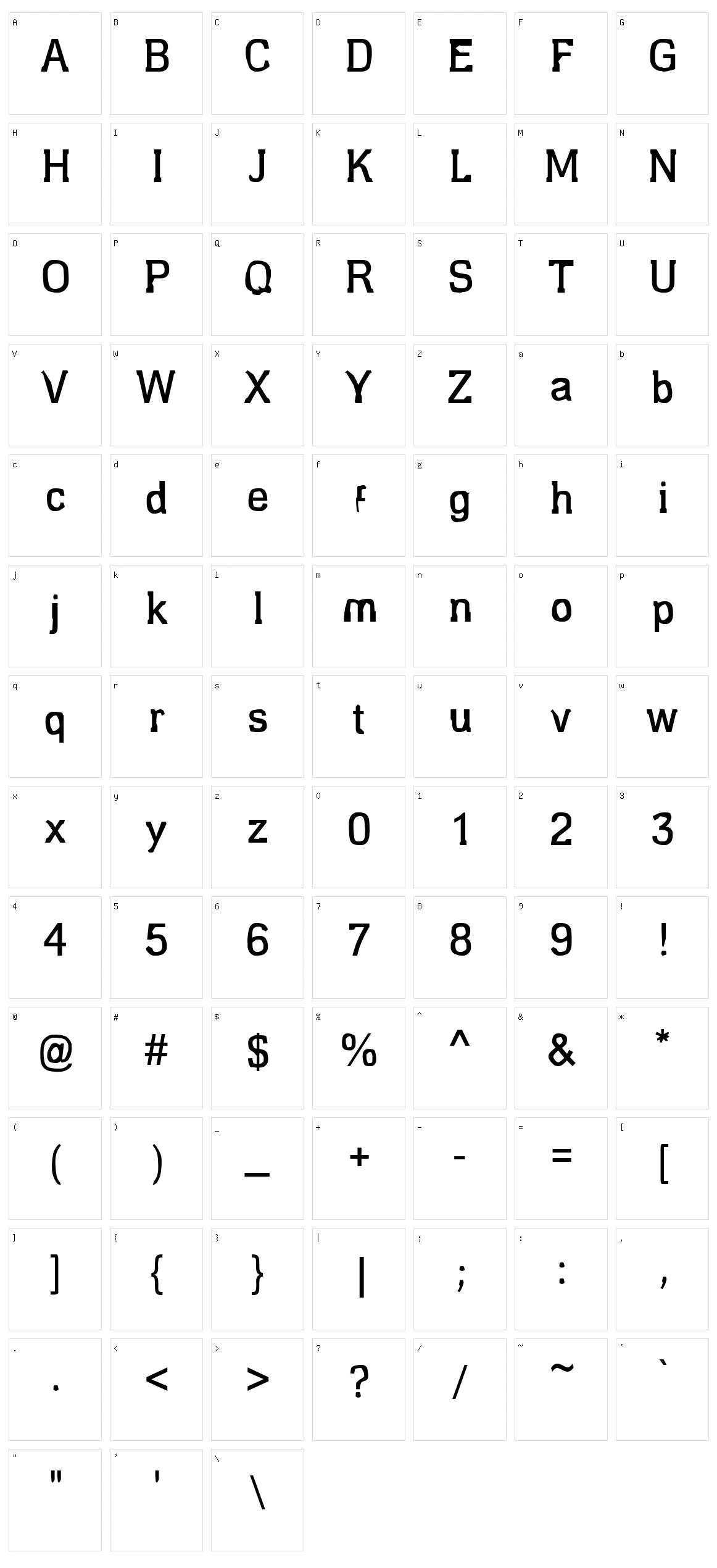
The free font Estragou de novo!!! is carefully designed by Marcio Hirosse /// Fabrika De Typos, showcasing a thoughtful balance of creativity and usability and falls under the Eroded font style. When you download the ZIP file, it contains only 32.53 KB of font files, making it lightweight and quick to download. Please review the license details below to understand permitted usage and distribution rights. If license information is not available, we recommend using this font for personal projects only or contacting the author directly for commercial usage permissions.